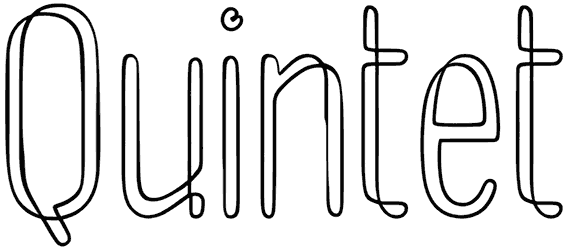
Quintet Font
Some fonts have a unique style that feels pleasant at first glance, and the Quintent is one of them. This neon font has a minimal design with a simple form that remains in your mind.
You may use the Quintent font for various cases, such as applications, magazines, and posters. This fancy font’s letters have a tall shape with a thin outline, which seems attractive to the viewers. So give the Quintent font a chance to impress your audience.